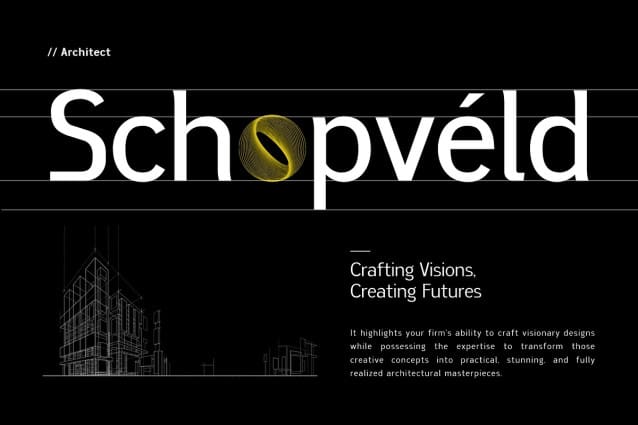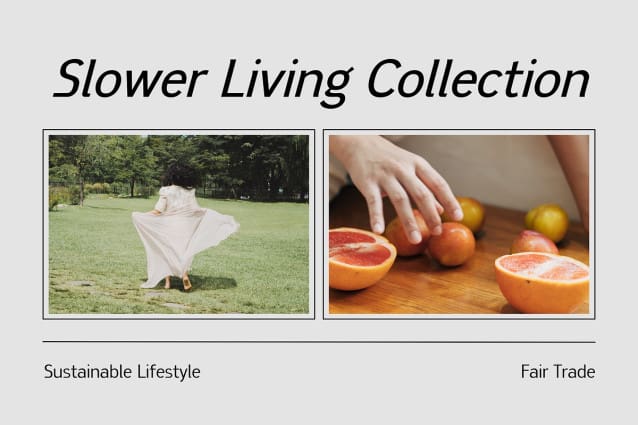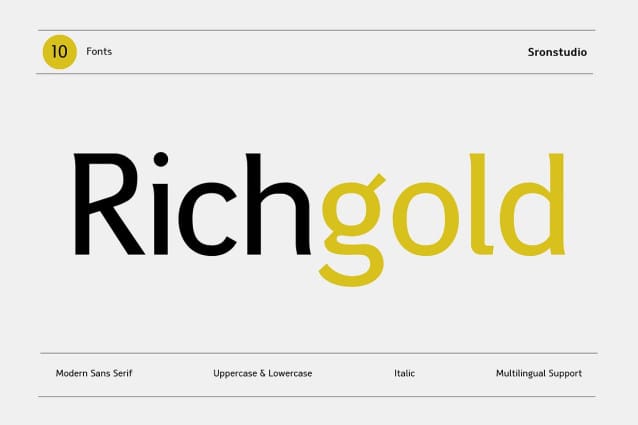
Richgold Font Family
Richgold Font Family is a modern sans-serif font designed for elegance and versatility. With its clean lines, balanced proportions, and contemporary feel, this font is perfect for branding, headlines, logos, web design, and editorial use. Its sleek and minimalist design ensures a professional and sophisticated look, making it an excellent choice for projects that demand clarity and style.